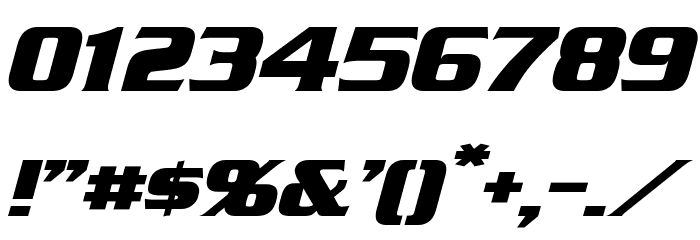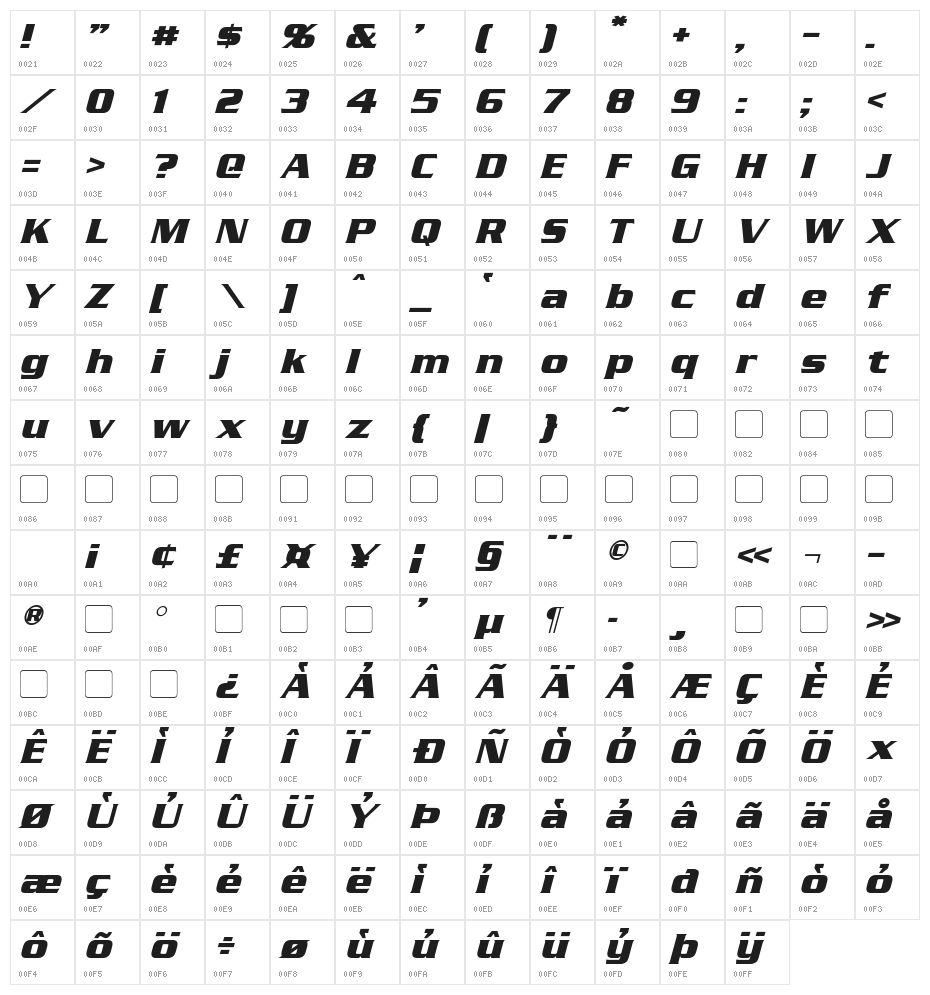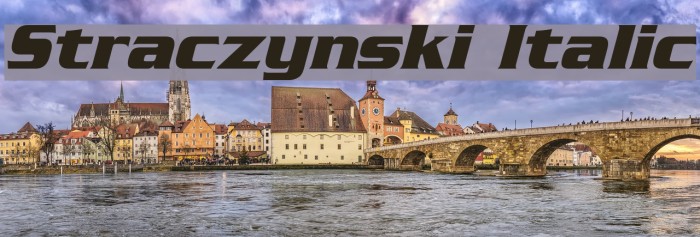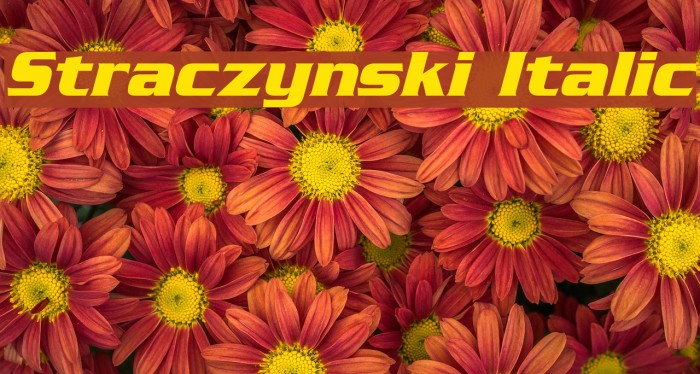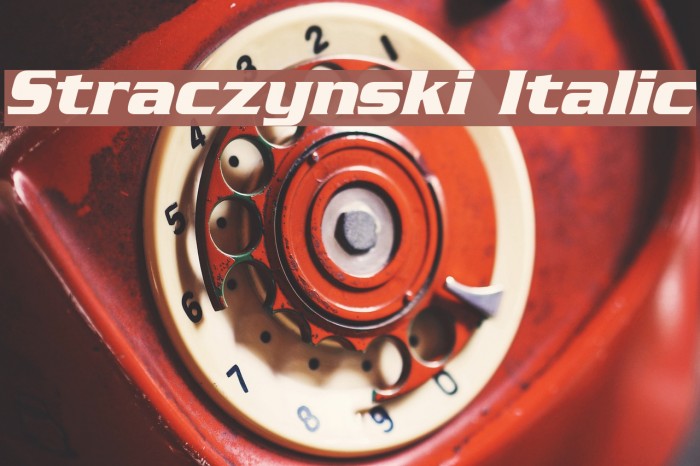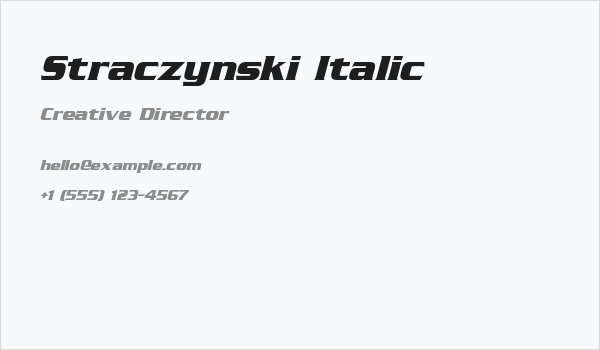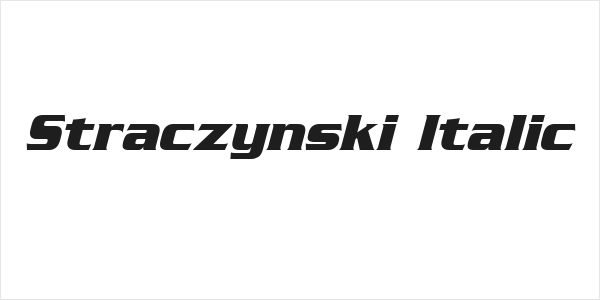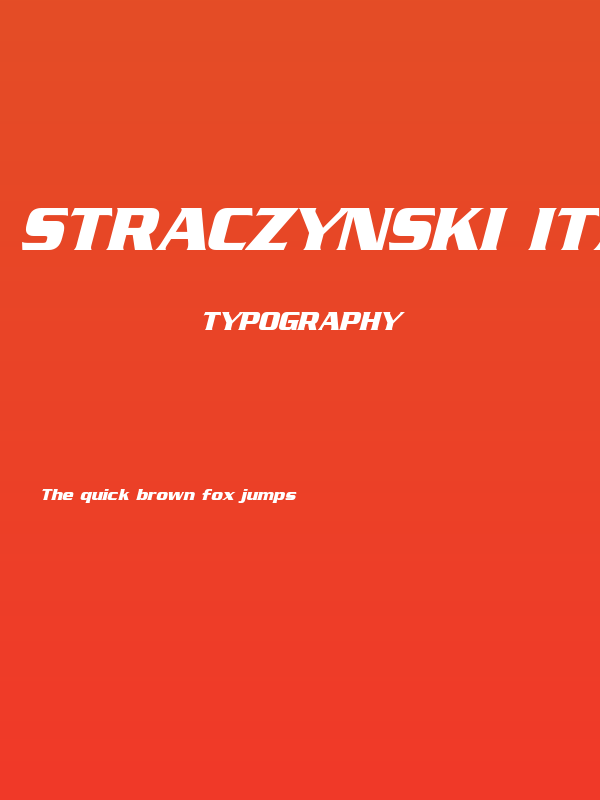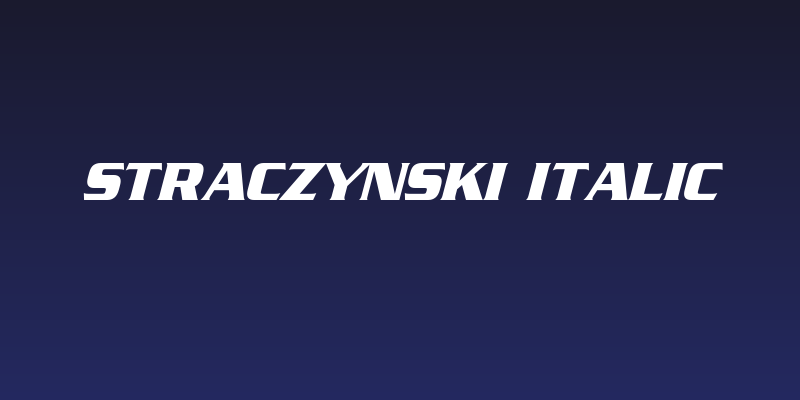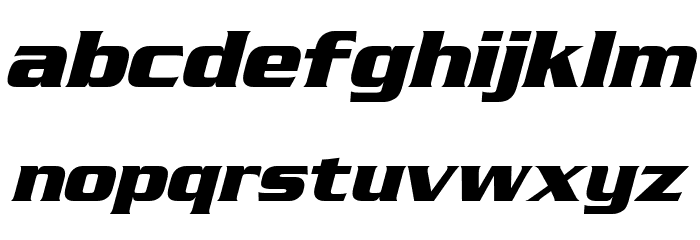
Straczynski Italic Font
Straczynski Italic Description
This font features a dynamic and modern italic style with a strong, angular design. The characters are slightly slanted, giving a sense of motion and energy. The uppercase letters are bold and commanding, while the lowercase letters maintain a consistent flow. Numbers and special characters are designed to match the overall aesthetic, providing a cohesive look. The font's sharp edges and clean lines make it suitable for contemporary designs. It is well-suited for projects that require a bold statement, such as sports branding or tech-related materials.
| Proposed Projects | Ideal for sports branding, tech-related materials, dynamic posters, and modern advertising. |